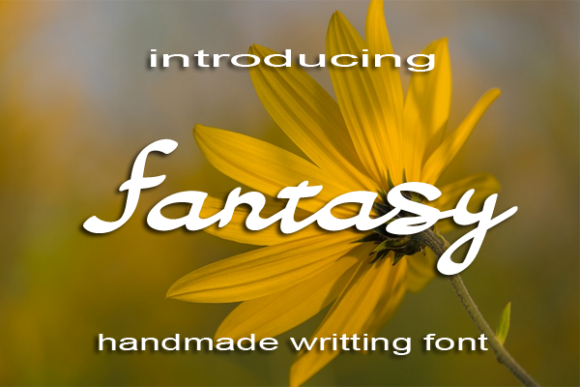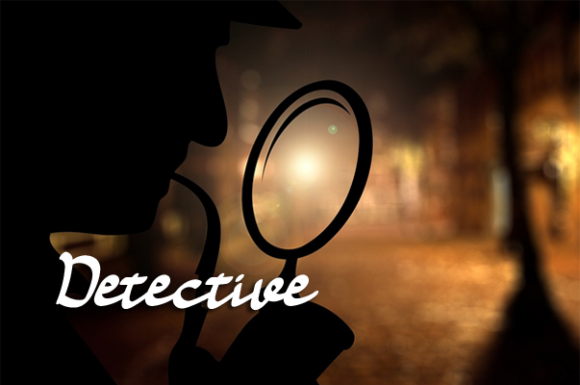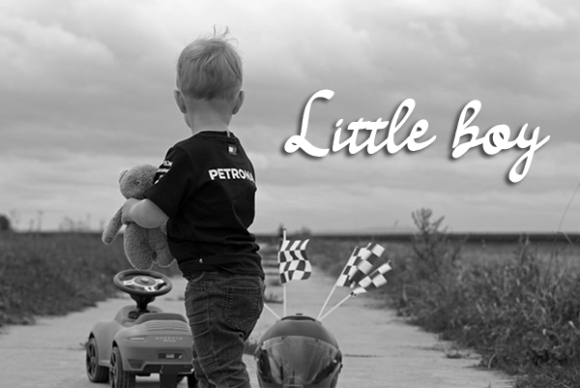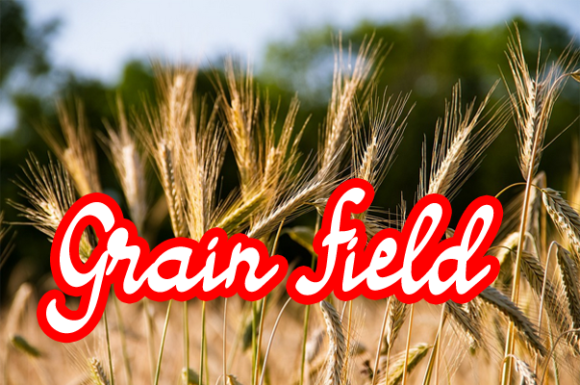
About Fantasy Font
Fantasy is a stylish and delicate handwritten font that brings a touch of elegance and charm to your designs. With its unique and artistic letterforms, it adds a customized and personalized touch to a variety of projects.
The stylish and delicate appearance of Fantasy makes it suitable for a wide range of design applications. Whether you’re working on wedding invitations, thank you cards, quotes, greeting cards, logos, or any other project that requires a customized touch, this font enhances the overall aesthetic and creates a visually appealing result.
When it comes to branding and logo design, Fantasy adds a touch of creativity and uniqueness. Its stylish and artistic letterforms create a memorable and distinctive identity for your brand. Whether you’re designing a logo for a creative business, an art studio, or a fashion brand, Fantasy helps you stand out from the crowd and make a lasting impression.
For stationery and printed materials, Fantasy brings a refined and elegant touch. Its delicate and flowing letterforms make it suitable for various occasions, such as wedding invitations, personalized notes, or event announcements. The customized look of Fantasy adds a sense of exclusivity and sophistication to your stationery designs.
Fantasy also works well for social media graphics and quotes. Its stylish and artistic appearance enhances the impact of inspirational quotes, messages, or captions. Whether you’re designing graphics for Instagram, Pinterest, or other platforms, Fantasy adds a touch of creativity and elegance to your typography.
Overall, Fantasy is a stylish and delicate handwritten font that adds a customized touch to your designs. Its unique and artistic letterforms make it suitable for a variety of projects, allowing you to create visually stunning and personalized creations. Whether you’re working on branding, stationery, or social media graphics, add Fantasy confidently and let yourself be amazed by the beautiful outcome it generates.